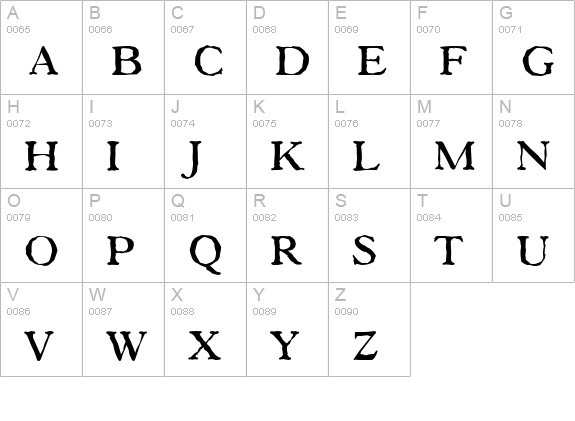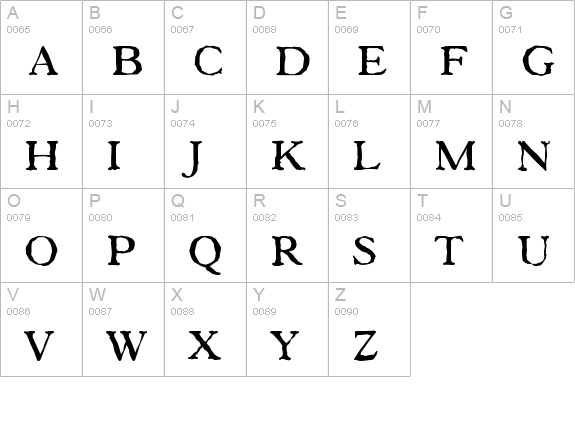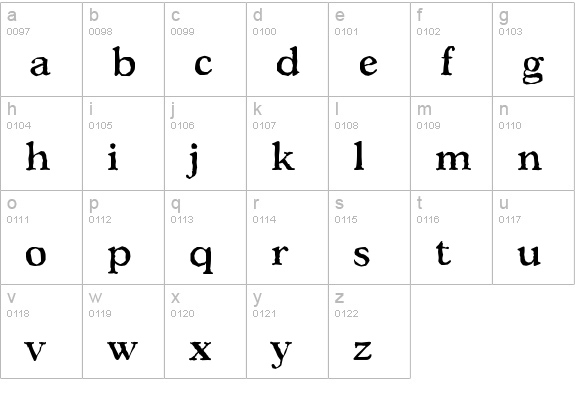
GascogneAntique-Medium-Regular is a balanced, medium-weight variant in the GascogneAntique typeface family \xE2\x80\x94 well suited to sub-headlines, navigation, and balanced editorial work.
GascogneAntique-Medium-Regular is a classic and elegant serif font that exudes a timeless charm and sophistication. With its delicate serifs and graceful letterforms, this typeface is perfect for adding a touch of vintage flair to your designs. What sets GascogneAntique-Medium-Regular apart is not only its beauty but also its versatility. Whether you're working on a branding project, editorial design, or wedding invitations, this font will lend a touch of refinement and class to any project. And the best part? GascogneAntique-Medium-Regular is available for free download at FontsMarket.com. So, you can add this stunning font to your collection without breaking the bank. Don't miss out on this opportunity to enhance your designs with the timeless beauty of GascogneAntique-Medium-Regular.